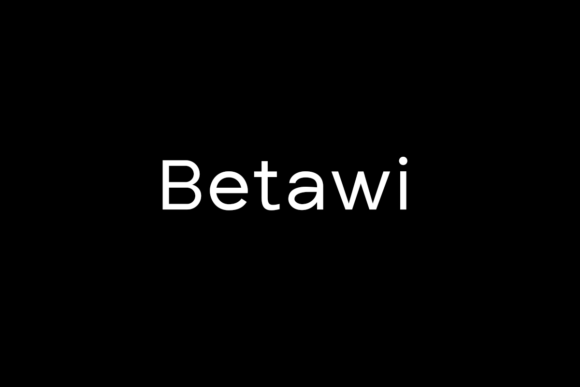
Betawi is a minimal and clean sans serif font. It can easily be matched to an incredibly large set of projects, so add it to your creative ideas and notice how it makes them stand out!